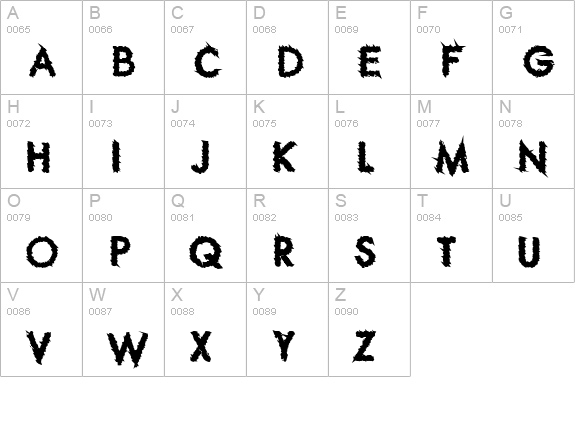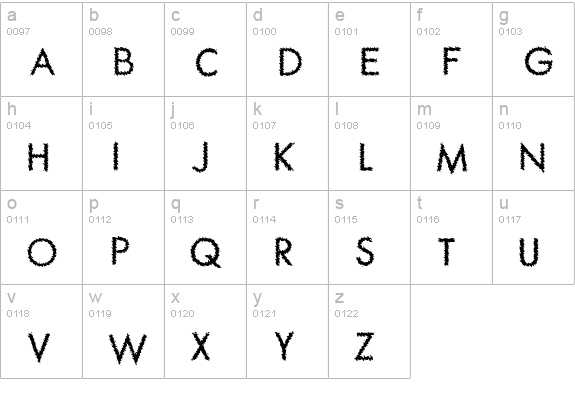
Ripple Crumb Font Details
Introducing Ripple Crumb font - a delightful and whimsical typeface perfect for adding a touch of playfulness to your designs. This charming font features unique ripple-like details on each letter, giving it a distinctive and eye-catching appeal. Whether you're working on a children's book, greeting cards, or branding projects, Ripple Crumb font is sure to stand out and make a statement. The best part? Ripple Crumb font is available for free download at FontsMarket.com. You can easily access this fun and creative font to elevate your design projects without any cost. So go ahead, unleash your creativity and add a sprinkle of magic to your work with Ripple Crumb font.